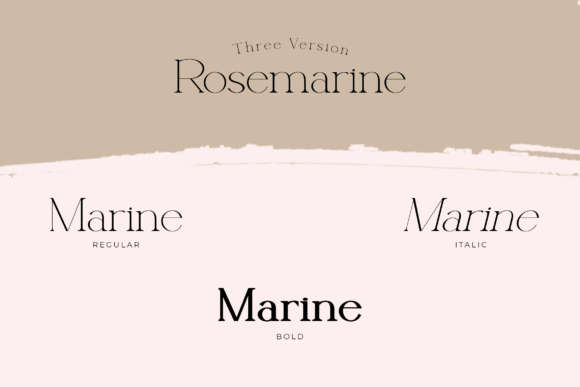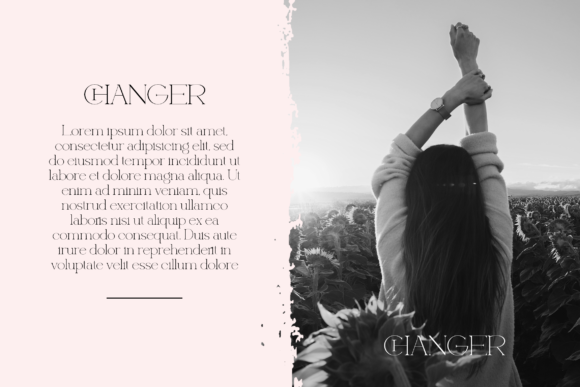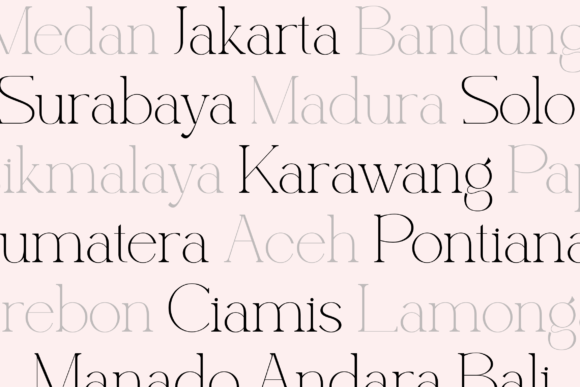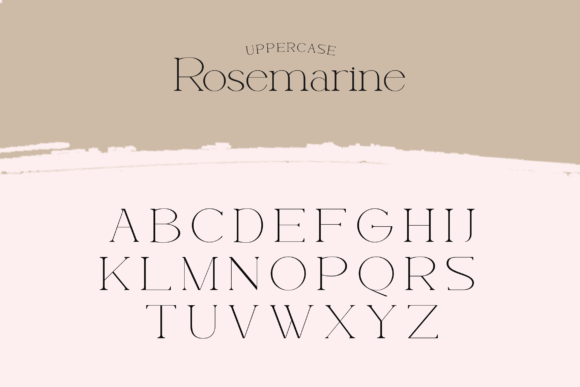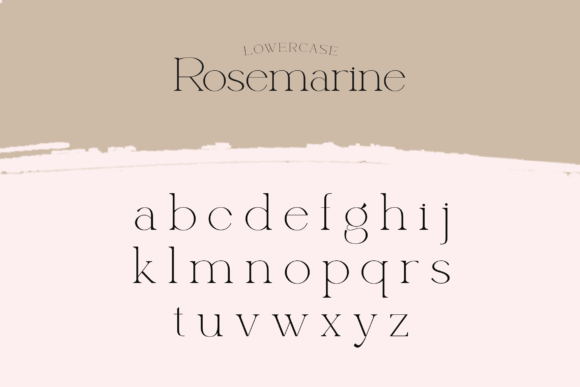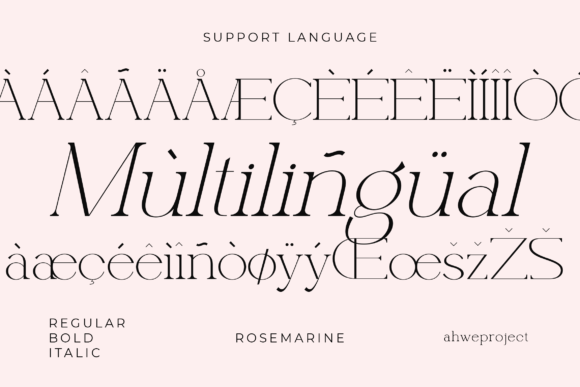
Introduction to Rosemarine Font
Do you ever find yourself in a creative jam, staring at a blank page or screen, wondering how to bring your vision to life? For many designers, the right font can be the missing piece that sets their project apart. That’s where the Rosemarine Font comes in – a beautiful, elegant serif font that’s sure to elevate any design.
As a valuable addition to your design resource library, the Rosemarine Font is a high-quality font that’s perfect for a wide range of creative projects. Whether you’re working on a free download or a paid design, this font is sure to add a touch of sophistication and style. Its clean lines and transparent background make it a versatile choice for any design need.
With the Rosemarine Font, you’ll have the freedom to focus on the creative aspects of your project, knowing that your typography is in good hands. In this article, we’ll delve into the world of this stunning font and explore why it’s a must-have for any designer’s library.
Key Features of Rosemarine Font
- High-quality, unique font design ideal for creative projects.
- Perfect for designers looking for a distinctive, elegant font to elevate their design projects.
Honest Review: Rosemarine Font
I recently came across the Rosemarine Font, a beautiful design resource that caught my attention. As a designer, I’m always on the lookout for high-quality fonts that can elevate my creative projects.
The Rosemarine Font is a stunning example of elegant typography, perfect for those who appreciate a more refined aesthetic. With a transparent background, this font allows for effortless customization and flexibility in various design applications.
- ✨ Elegant and refined typography
- ✨ Transparent background for seamless customization
- ⚠️ Limited font styles and variations
- ⚠️ May require additional adjustments for optimal readability
Tips for Getting the Most Out of Rosemarine Font
Use the Rosemarine Font in combination with a transparent background to create a clean and modern look. Experiment with different font sizes and colors to add visual interest to your design. Use the font in conjunction with other design elements, such as images and graphics, to create a cohesive and effective design.
Common Use Cases for Rosemarine Font
The Rosemarine Font is ideal for a variety of creative projects, including social media graphics, posters, flyers, logos, business cards, brochures, presentations, and documents. Use it to add a touch of elegance and sophistication to your design.